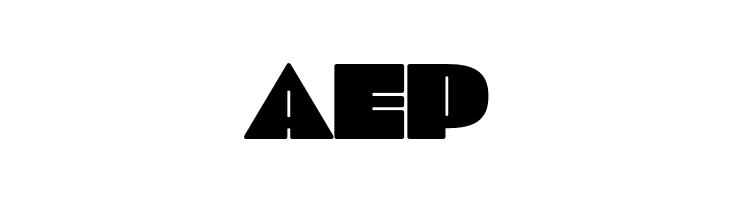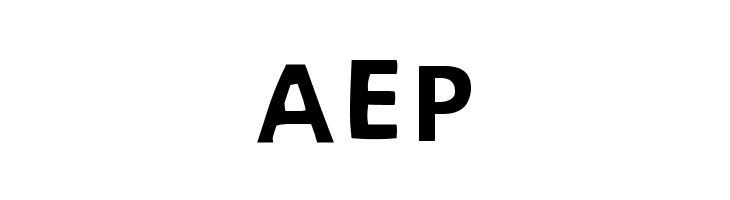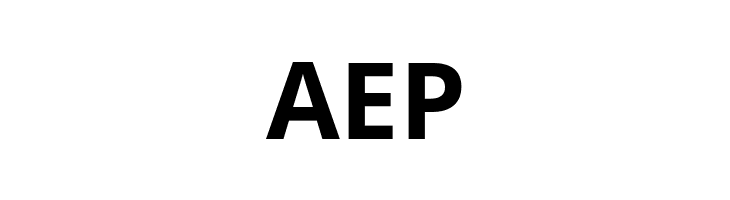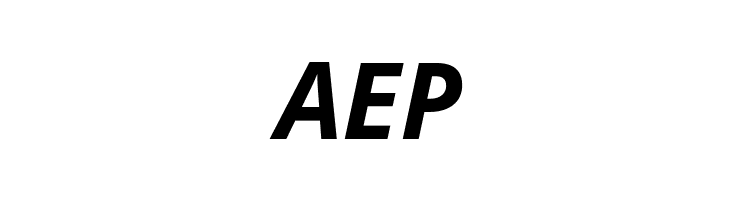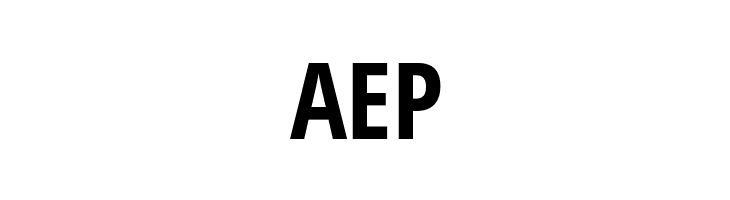
A bold, geometric font with strong, block-like letterforms.
A modern, versatile sans-serif font with open forms and excellent legibility.
A clean, modern sans-serif font with excellent legibility and neutral appearance.
A bold, modern sans-serif font with clean lines and excellent readability.
A bold, italicized sans-serif font with a modern and dynamic look.
A clean, modern sans-serif font with a condensed and light structure.
A sleek, modern, condensed, light italic font with tight spacing.
A modern, condensed, light italic typeface with tight spacing and low contrast.